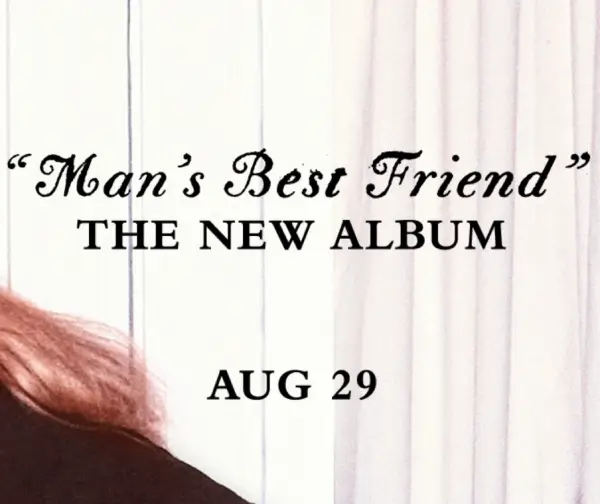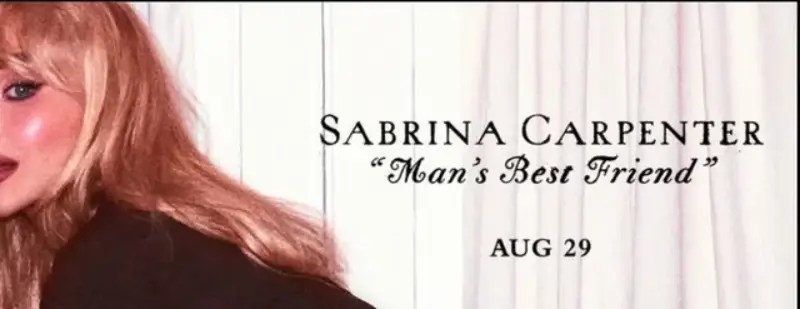
Short answer: the official Man’s Best Friend product artwork does not publish typeface credits. CAL Bodoni Terracina Italic is the strongest visual candidate for the album title among the fonts tested here, while the other names below are comparisons for supporting text—not confirmed design credits.
Man’s Best Friend Font
Matched or Identified Fonts
CAL Bodoni Terracina Italic
This guide uses the standard-album artwork shown by the Island Records official store and the Sabrina Carpenter official store, plus the promotional crop in the preview that includes “THE NEW ALBUM” and “AUG 29.” Alternate covers and merchandise may use different lettering.
Font matches by role and confidence
| Artwork text | Visual candidate | Confidence | Why |
|---|---|---|---|
| “Man’s Best Friend” | CAL Bodoni Terracina Italic | Medium | The high contrast, formal italic rhythm, and decorative capitals are close, but the artwork may include custom adjustments. |
| “Sabrina Carpenter” | Handle Oldstyle Std | Low to medium | Its spaced capitals provide a useful comparison; the exact proportions and terminals do not prove a match. |
| “THE NEW ALBUM” | Traditional Arabic Bold | Low | The Latin capitals share a classical serif texture, but this is only a broad visual alternative. |
| “AUG 29” | Bembo Bold | Medium | The compact old-style serif forms are similar; no official credit connects Bembo to the artwork. |
Editorial note: each result is deliberately labeled as a visual candidate. No visual similarity on this page should be read as an official credit from Sabrina Carpenter, Island Records, a designer, or a foundry.